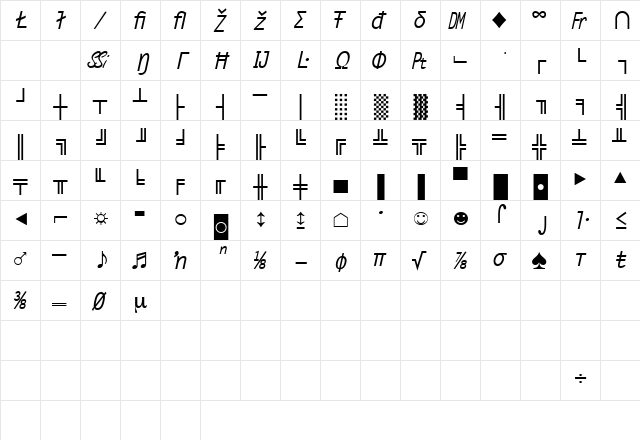
MicroPiThreeSSK Regular
Design Context for MicroPiThreeSSK Typeface
MicroPiThreeSSK offers clean, dependable letterforms without strong stylistic allegiance, making it a practical choice for designers who need flexibility.